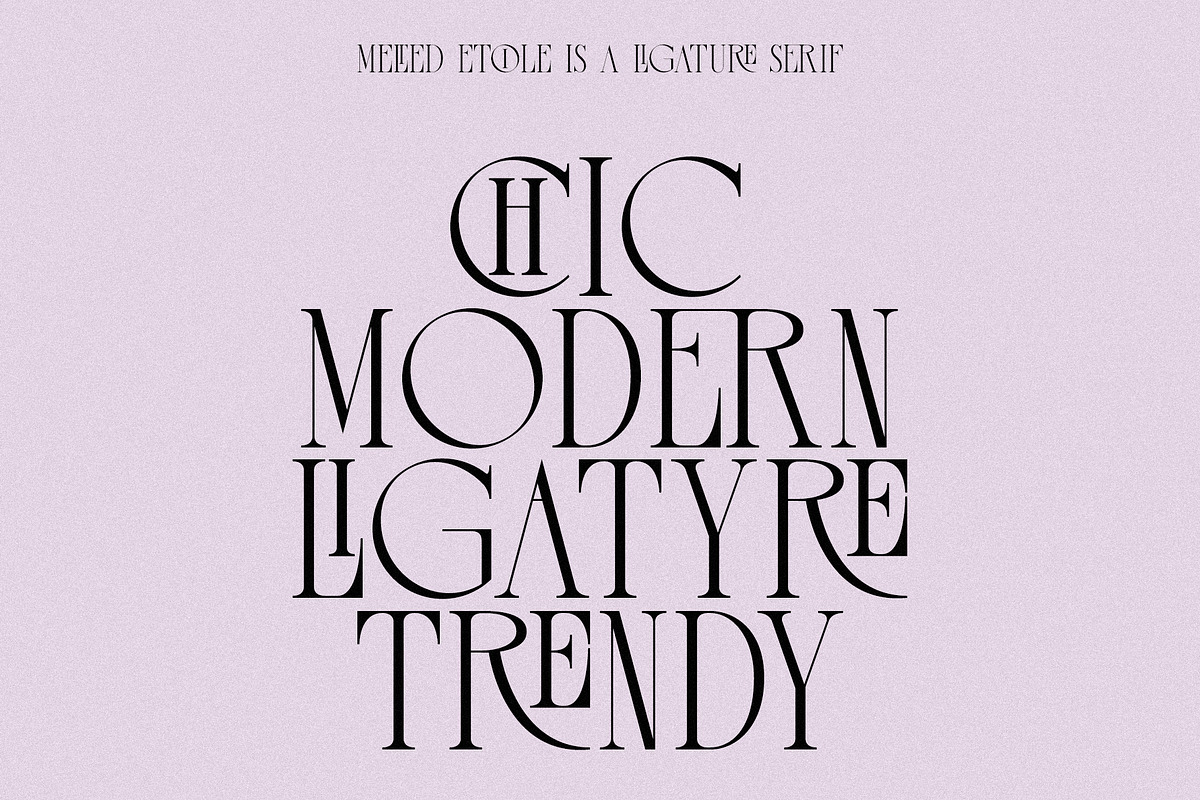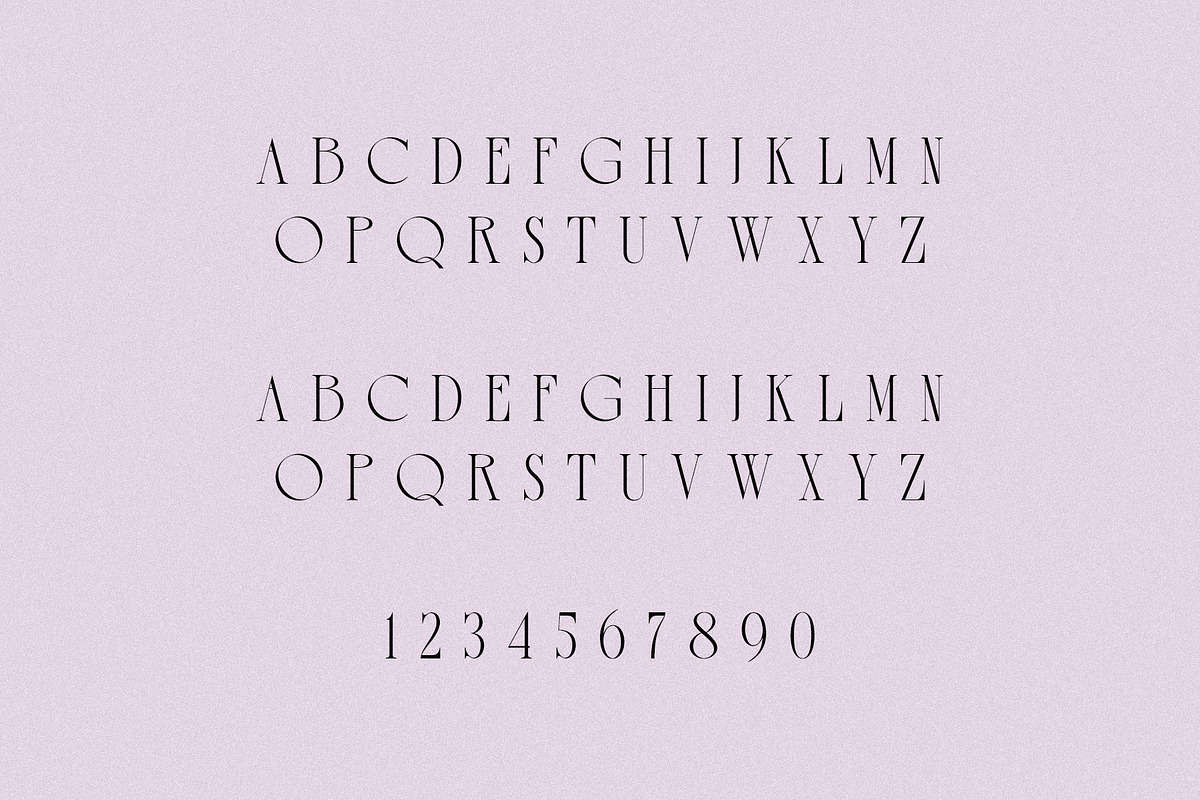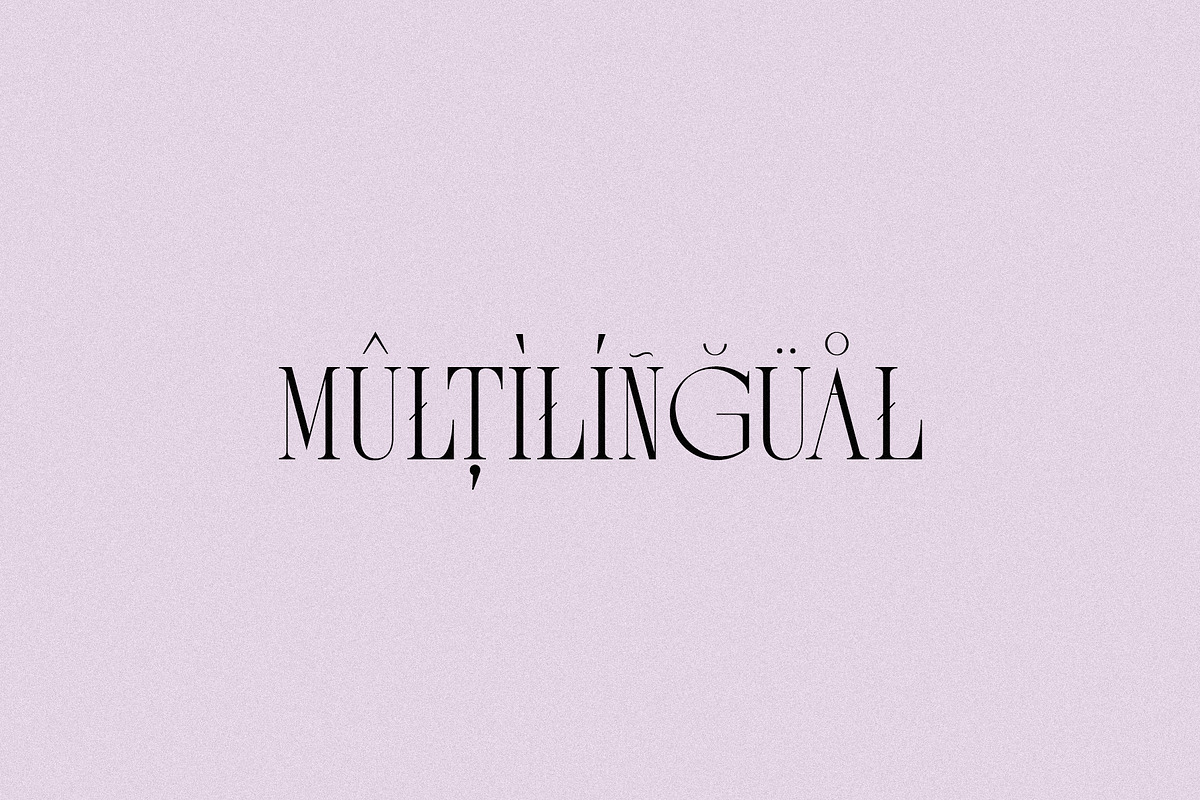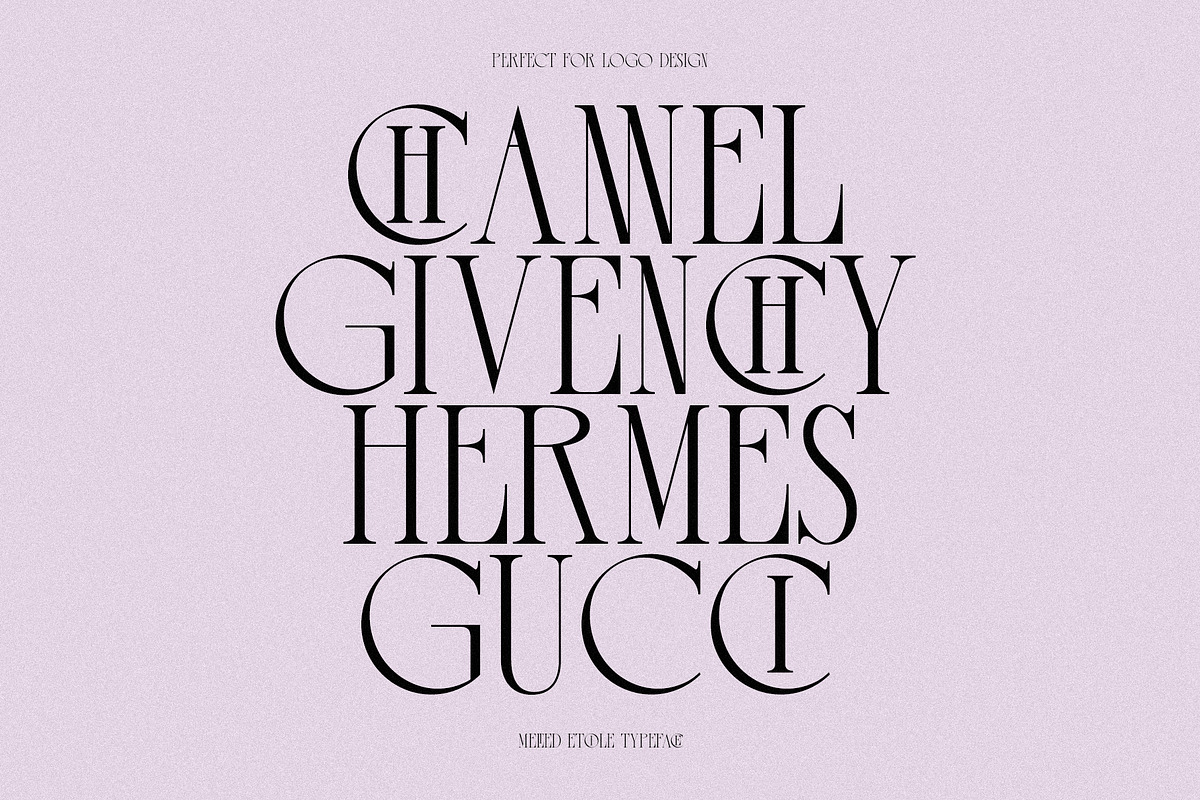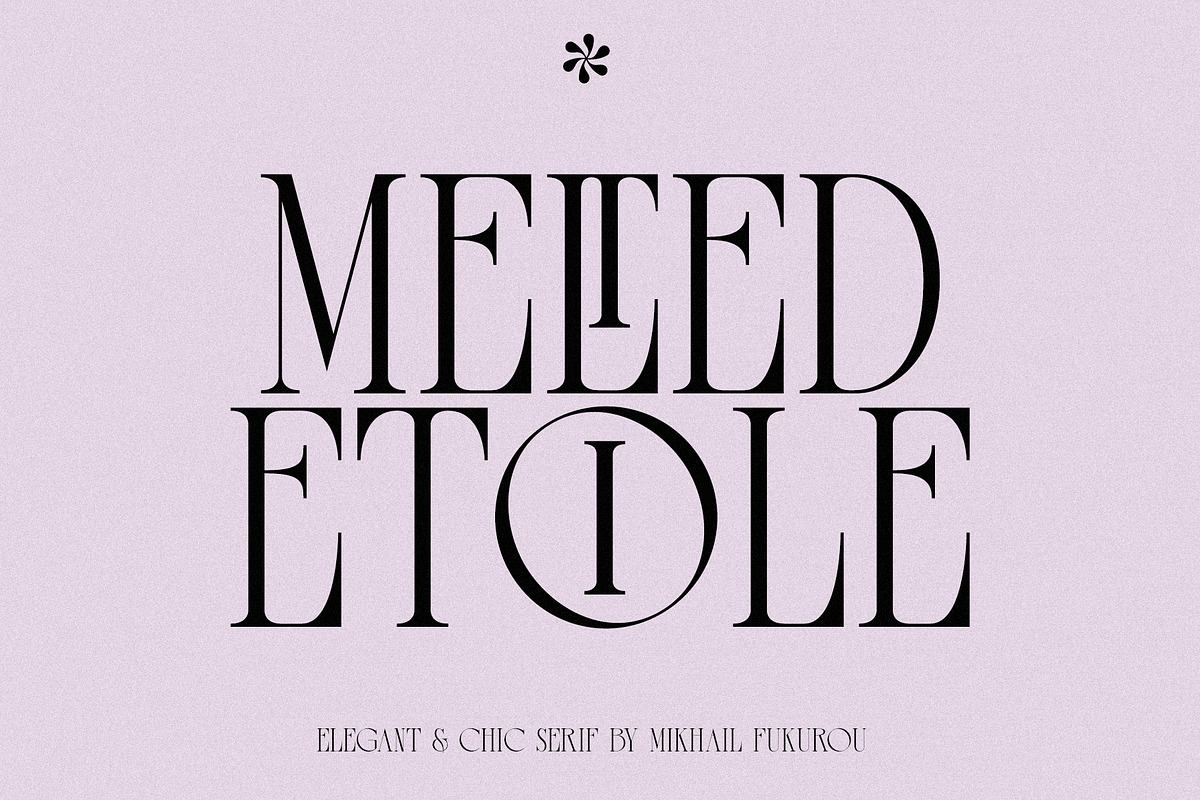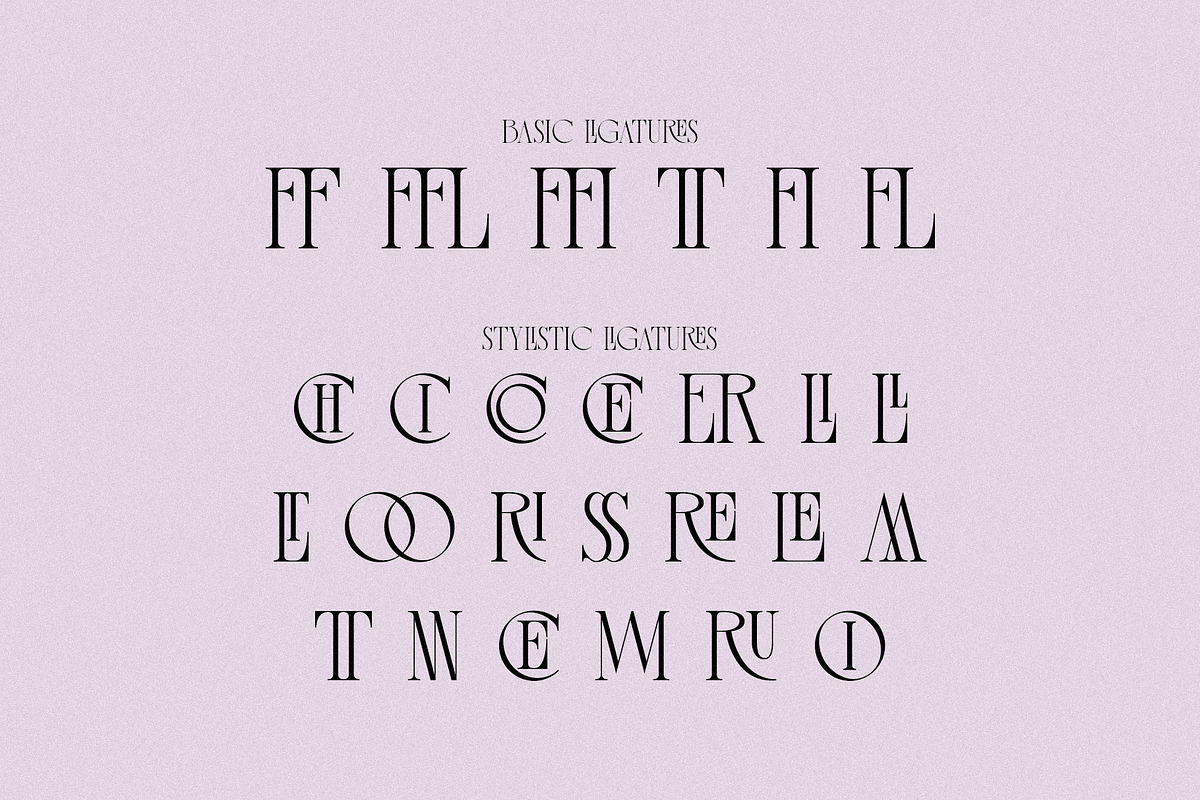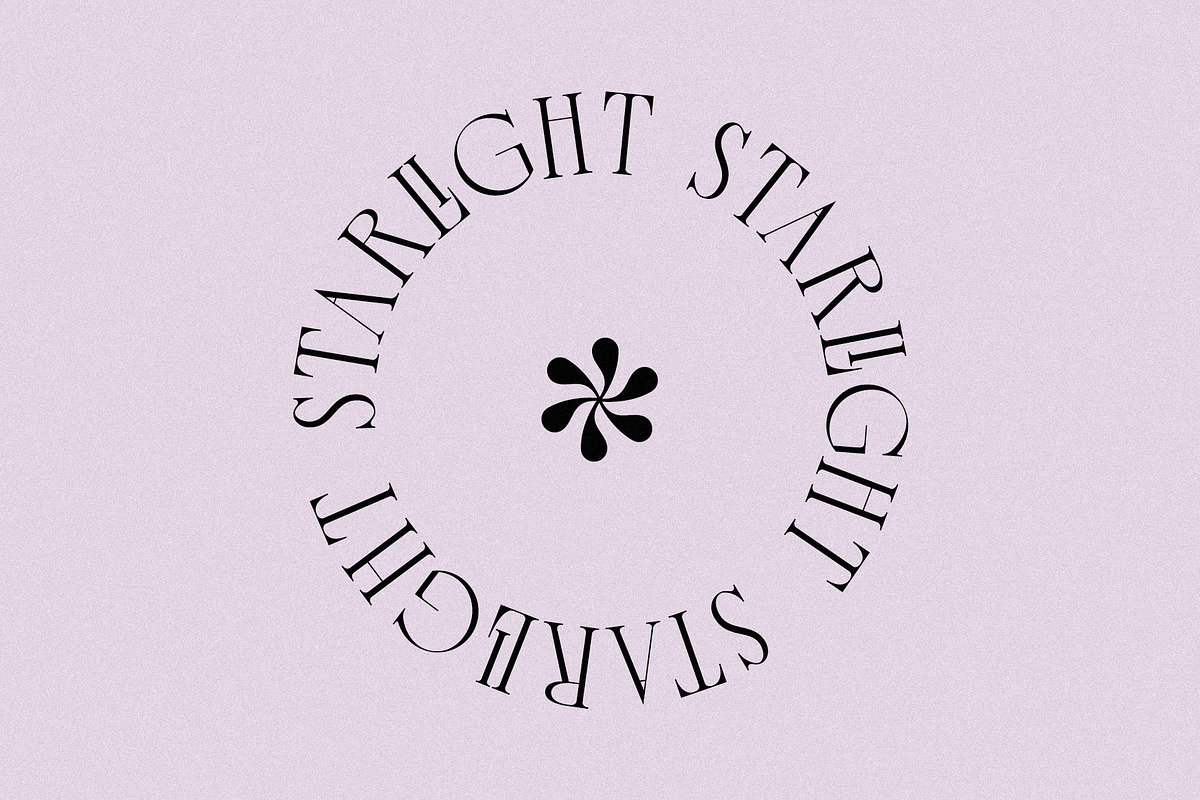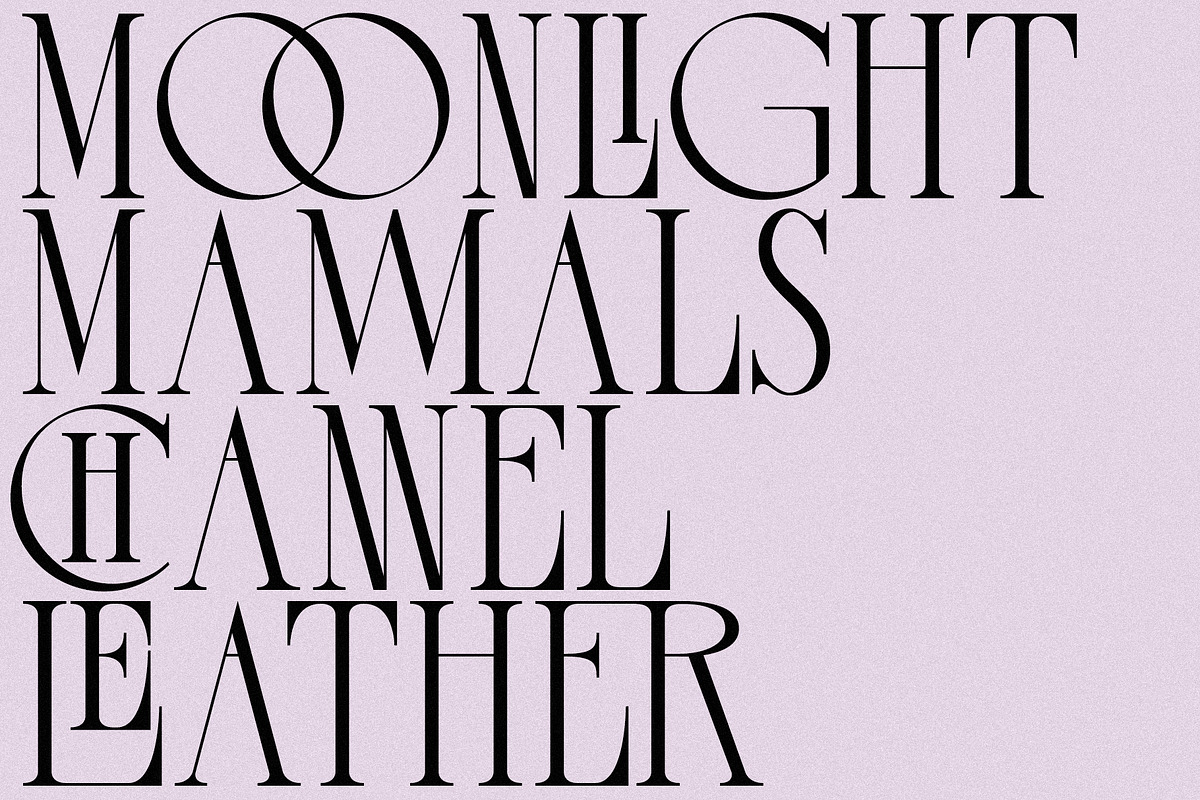
Melted Etoile - Chic Ligature Serif
Melted Etoile is a chic ligature serif that blends high-fashion elegance with soft, fluid character. Designed to feel both refined and expressive, it features graceful curves, delicate contrast, and distinctive ligatures that flow effortlessly between letters - creating a seamless, elevated reading experience.
Inspired by the romance of Parisian couture and modern editorial typography, Melted Etoile carries a subtle “melted” softness in its terminals and joins, giving it a unique personality that feels luxurious yet approachable. The carefully crafted ligatures add rhythm, making every word feel intentional and styled.
Melted Etoile features:
- Letters
- More than 300+ glyphs
- Basic Ligatures
- Stylistic Ligatures